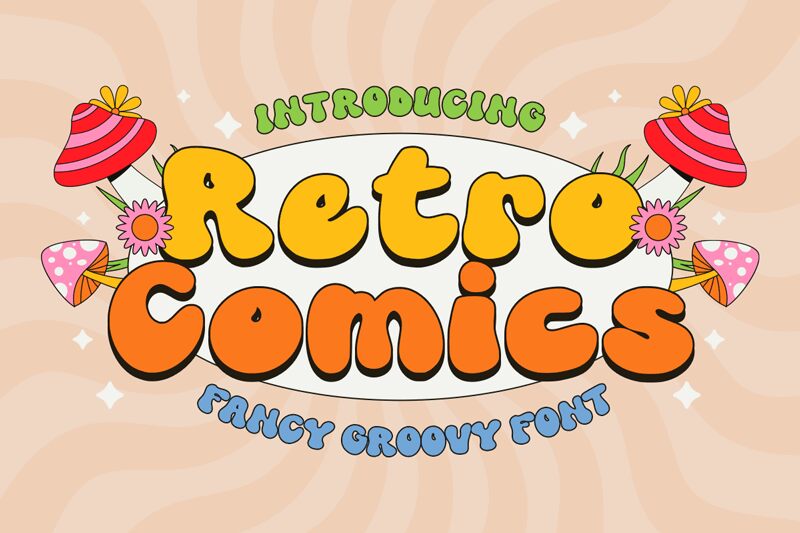
Retro Comics font family was created by Zarma Type Foundry to put a smile on your face. It contains 2 whimsical font styles that, when combined, can create colorful and bold designs that are simply impossible to look away from. Inspired by retro comics and their playful style, the free font family for personal use presents fun designs each with its own character and style.
With its vibrant display, Retro Comics is a splendid tool to have for cartoon-related projects so you can easily use it for movie posters or infographics. Create books for children and design the cover and the themes of the pages with a vibrant touch. Use this free font for logos and other branding designs, and use it for texts that need to be clear and noticeable such as shop signs, or use it for artistic magazine covers.